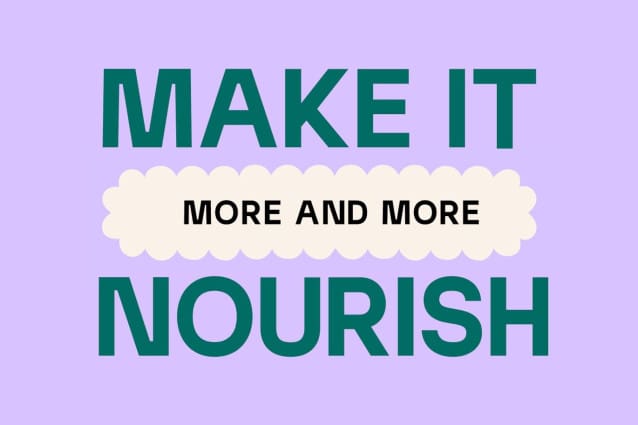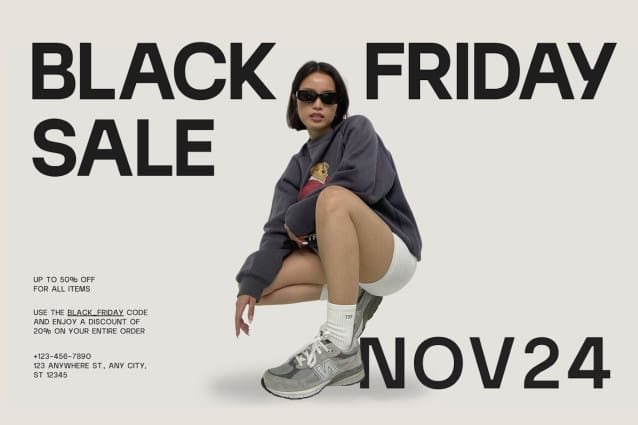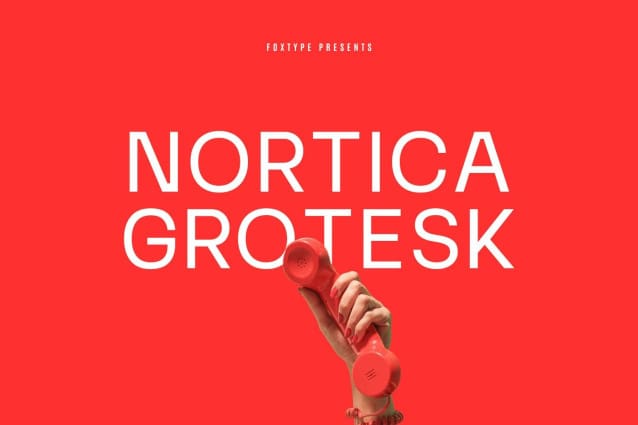
Nortica Grotesk Font
Nortica Grotesk Font a meticulously crafted modern sans serif font that’s ideal for a wide range of design projects. With 40 versatile weights, Nortica excels at creating striking headlines, captivating posters, and sophisticated branding materials. Its clean lines and contemporary style make it an ideal choice for magazine covers, logos, paragraph text, and more.